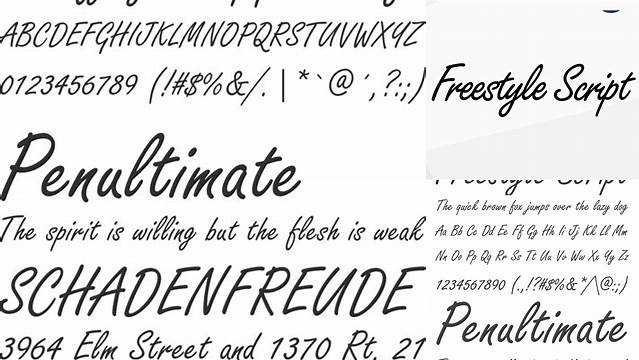
Freestyle Script Font: Free Download & Usage Guide
Hey guys! Ever wondered about that super swirly, elegant font you see everywhere? Chances are, you're thinking of Freestyle Script Regular font! It's a classic for a reason, adding a touch of personality and flair to anything it graces. But finding it for free and using it right can be a bit tricky. So, let's dive into everything you need to know about Freestyle Script Regular font free download, usage, and its amazing variations!
1. What is Freestyle Script Regular Font?
So, what exactly is Freestyle Script Regular font? Well, it's a beautiful, flowing script typeface designed by Martin Wait in 1981. Think wedding invitations, logos, and anything that needs a touch of elegance and personality. Its characteristic swashes and connecting letters give it a handwritten feel, making it incredibly versatile. This font is not just a set of characters; it's a statement, a way to add a personal touch to your designs. The beauty of Freestyle Script Regular font lies in its ability to mimic natural handwriting, creating a sense of authenticity and warmth. Whether you're designing a greeting card or a brand logo, this font has the power to elevate your work and capture the attention of your audience. The Freestyle Script Regular font is more than just a typeface; it's a design asset that can enhance the visual appeal and emotional impact of your projects. The versatility of Freestyle Script Regular font makes it a favorite among designers across various industries. Its elegance and readability make it suitable for a wide range of applications, from web design to print media. The Freestyle Script Regular font continues to be a popular choice for those looking to add a touch of sophistication and personality to their work. Its enduring appeal is a testament to its timeless design and versatility.
8. Freestyle Script Font Alternatives
Okay, Freestyle Script Regular font is amazing, but sometimes you want something a little different. Or maybe you need a backup in case you can't use Freestyle Script Regular font free due to licensing restrictions. That's where font alternatives come in! There are tons of script fonts out there that offer a similar aesthetic to Freestyle Script Regular font. Some popular alternatives include: Brush Script MT: This is a classic script font that has a similar handwritten feel to Freestyle Script Regular font. It's a bit bolder and more casual, making it a good choice for projects that need a more playful touch. Edwardian Script ITC: This is another elegant script font that's often used for formal occasions like weddings and invitations. It's a bit more ornate than Freestyle Script Regular font, but it still has a beautiful, flowing style. Bickham Script Pro: This is a professional-grade script font that's often used in branding and advertising. It's a bit more refined and polished than Freestyle Script Regular font, making it a good choice for projects that need a sophisticated look. Before you use any alternative, make sure you check the licensing terms. Just like with Freestyle Script Regular font free downloads, some fonts are only free for personal use. Exploring font alternatives is a great way to expand your design vocabulary and find the perfect font for your project. Don't be afraid to experiment with different styles and see what works best for you. Ultimately, the best font is the one that best conveys the message and feeling you're trying to communicate.
9. Combining Freestyle Script with Other Fonts
One of the keys to using Freestyle Script Regular font free effectively is knowing how to pair it with other fonts. Script fonts, in general, can be a bit tricky to use in large blocks of text, so it's often best to use them for headings, logos, or other decorative elements. To create a balanced and visually appealing design, you'll want to pair Freestyle Script Regular font with a more simple, readable font for the body text. Some good options include: Arial: This is a classic sans-serif font that's known for its readability. It's a great choice for body text because it's clean and simple, and it won't distract from the more decorative Freestyle Script Regular font. Times New Roman: This is a classic serif font that's often used in books and newspapers. It's a bit more formal than Arial, but it's still very readable. Open Sans: This is a popular sans-serif font that's designed for the web. It's clean, modern, and very versatile. When pairing fonts, it's important to consider the overall tone and style of your design. You want the fonts to complement each other, not clash. A good rule of thumb is to choose a font that contrasts with Freestyle Script Regular font free in terms of weight and style. For example, if you're using Freestyle Script Regular font for a heading, you might choose a lighter-weight sans-serif font for the body text. Experimenting with font pairings is a great way to develop your design skills and create unique and effective designs. Don't be afraid to try different combinations and see what works best for your project.
10. Freestyle Script for Logos
Thinking about using Freestyle Script Regular font free in a logo? It's a popular choice for a reason! Its elegant, handwritten style can add a personal and sophisticated touch to your brand identity. However, there are a few things to keep in mind when using script fonts in logos. First and foremost, readability is key. Your logo needs to be easily recognizable, even at small sizes. Freestyle Script Regular font can be a bit tricky to read if it's too small or if there are too many other elements competing for attention. Make sure the font size is large enough and that there's enough contrast between the text and the background. Another important consideration is versatility. Your logo will likely be used in a variety of contexts, from business cards to websites to social media profiles. Freestyle Script Regular font may not be the best choice for every application. Consider creating a secondary logo or submark that uses a simpler font for situations where readability is paramount. It's also a good idea to test your logo in black and white to make sure it still looks good without color. The swashes and flourishes of Freestyle Script Regular font can sometimes get lost or muddled in black and white. Despite these challenges, Freestyle Script Regular font can be a fantastic choice for logos, especially for brands that want to project a sense of elegance, creativity, or personal touch. Just be sure to use it thoughtfully and strategically. Using Freestyle Script Regular font free wisely can truly elevate your brand's visual identity and create a lasting impression.
11. Freestyle Script for Invitations
12. Freestyle Script for Business Cards
13. Freestyle Script for Websites
14. Freestyle Script for Social Media Graphics
15. Freestyle Script for Print Materials
16. Freestyle Script Font Variations
17. Freestyle Script Bold
18. Freestyle Script Italic
19. Freestyle Script Light
20. Freestyle Script Font Family
25. Freestyle Script Font Pairing
26. Freestyle Script Font Design Tips
27. Freestyle Script Font Inspiration
28. Common Mistakes When Using Freestyle Script
30. The Future of Freestyle Script Font